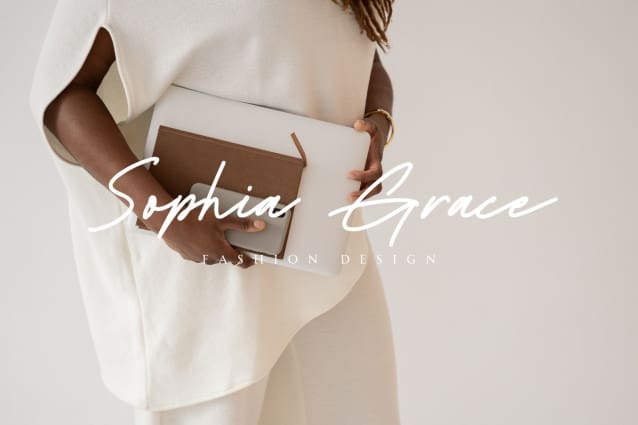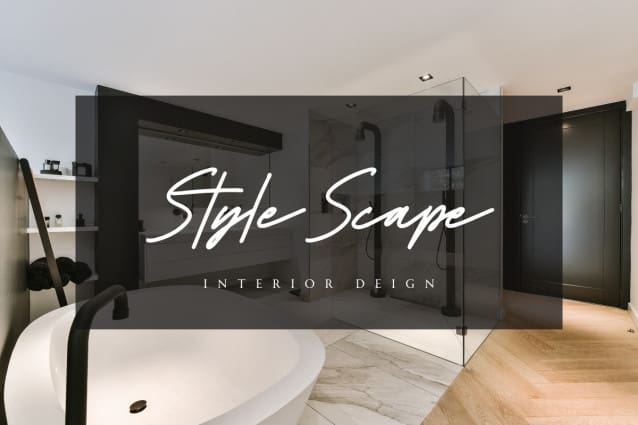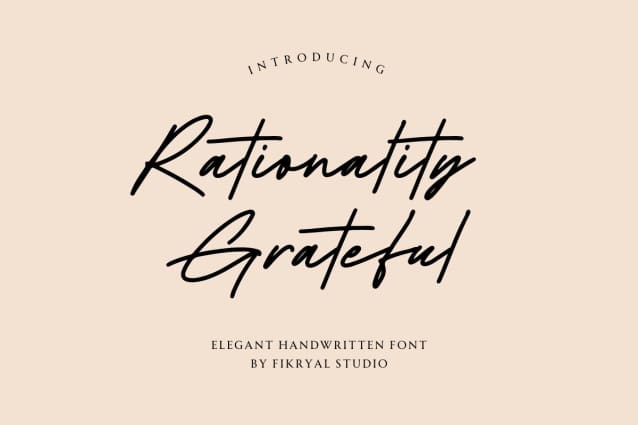
Rationality Grateful Font
Rationality Grateful Font is an elegant handwritten font that exudes sophistication and charm. Its clean and modern design is perfect for a wide range of design projects, from wedding invitations to branding materials.
This font features delicate and flowing strokes, which add a touch of femininity and grace to any design. The letters are carefully crafted to ensure readability and legibility, even in small sizes.
With its elegant curves and swooping lines, Rationality Grateful is ideal for use in headings, titles, and other large text blocks. It’s also great for adding a personal touch to handwritten notes, quotes, and social media posts.
Overall, Rationality Grateful is a versatile and timeless font that will elevate any design project and leave a lasting impression on your audience.